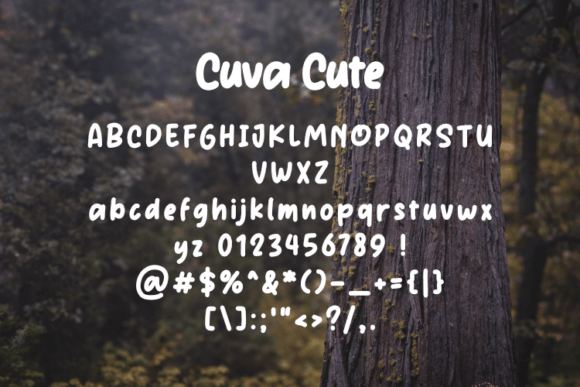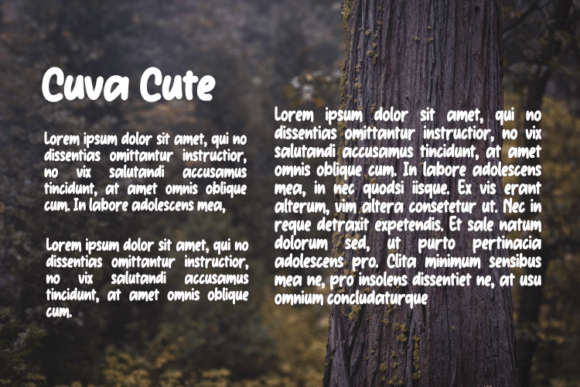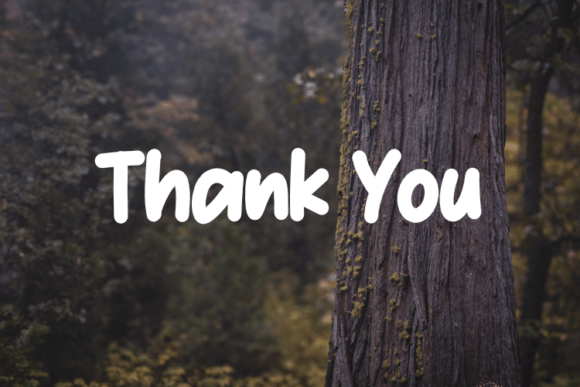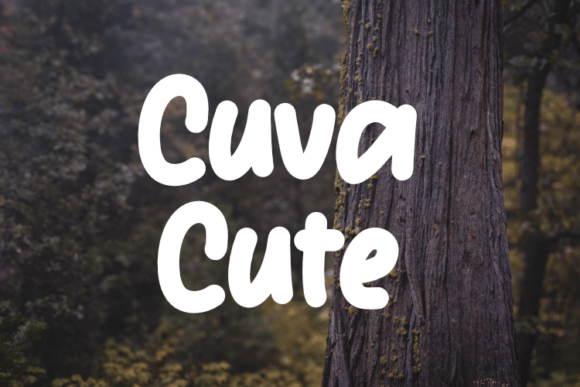
Introducing Cuva Cute Font: The Ultimate Typeface for Modern Designers
In the world of typography, a font can make or break a design. With the numerous options available, it’s essential to choose a typeface that not only resonates with your brand’s personality but also offers flexibility and excellent readability. This is where Cuva Cute Font comes into play – a modern and elegant typeface designed to cater to the diverse needs of designers and crafters.
What Makes Cuva Cute Font Stand Out?
Cuva Cute is a thoughtfully crafted typeface that boasts a unique blend of modernity and elegance. Its clean lines, subtle curves, and carefully considered letterforms make it an ideal choice for a wide range of design applications. Whether you’re working on a branding project, creating engaging social media content, or designing a website, Cuva Cute Font is sure to impress.
Key Features of Cuva Cute Font
- Modern and Elegant Design: Cuva Cute Font features a sleek and sophisticated design that’s perfect for contemporary brands and designers.
- Excellent Readability: The typeface is optimized for readability, ensuring that your text is clear and easy to read across various media, including digital screens and print materials.
- Flexible and Versatile: Cuva Cute Font is designed to work seamlessly across a wide range of design software and office applications, making it an excellent addition to your font library.
Cuva Cute Font offers numerous benefits for designers and crafters, including:
- Time-Saving: With Cuva Cute Font, you can create stunning designs quickly and efficiently, thanks to its excellent readability and flexibility.
- Consistency: The font’s modern and elegant design ensures consistency across your brand’s visual identity, helping to establish a strong brand presence.
- Creativity: Cuva Cute Font’s versatility and wide range of applications make it an excellent choice for creative projects, allowing you to experiment with different styles and designs.
Use Cases for Cuva Cute Font
Cuva Cute Font is an excellent choice for various design applications, including:
- Branding and Logo Design: Create a lasting impression with Cuva Cute Font’s modern and elegant design, perfect for logos, business cards, and letterheads.
- Digital Marketing: Use Cuva Cute Font to create engaging social media content, email newsletters, and website designs that resonate with your target audience.
- Print Materials: Cuva Cute Font is optimized for print, making it an excellent choice for brochures, flyers, posters, and other print materials.
In conclusion, Cuva Cute Font is an exceptional typeface that offers a unique blend of modernity, elegance, and flexibility. Its excellent readability, superior cross-platform compatibility, and versatility make it an ideal choice for designers and crafters. Whether you’re working on a branding project, creating engaging digital content, or designing print materials, Cuva Cute Font is sure to become an essential part of your design toolkit.